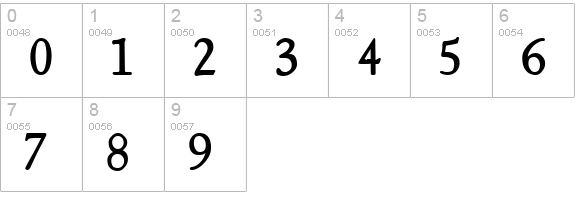
NewStyleTitling Bold Font Details
NewStyleTitling Bold is a strong, high-contrast variant in the NewStyleTitling typeface family \xE2\x80\x94 well suited to headlines, attention-grabbing titles, and strong calls-to-action.
Introducing NewStyleTitling Bold font, a bold and eye-catching typeface designed for making a statement. This modern and stylish font is perfect for adding a touch of sophistication to your projects. With its sleek lines and elegant curves, NewStyleTitling Bold is sure to grab attention and elevate any design. The best part? NewStyleTitling Bold font is available for free download at FontsMarket.com. This means you can easily access this premium font without any cost, making it a valuable addition to your font collection. Whether you're working on branding, advertising, or any other creative project, NewStyleTitling Bold font is a versatile choice that will help you stand out. Don't miss out on this opportunity to enhance your designs with the striking NewStyleTitling Bold font. Download it for free today and unleash your creativity!